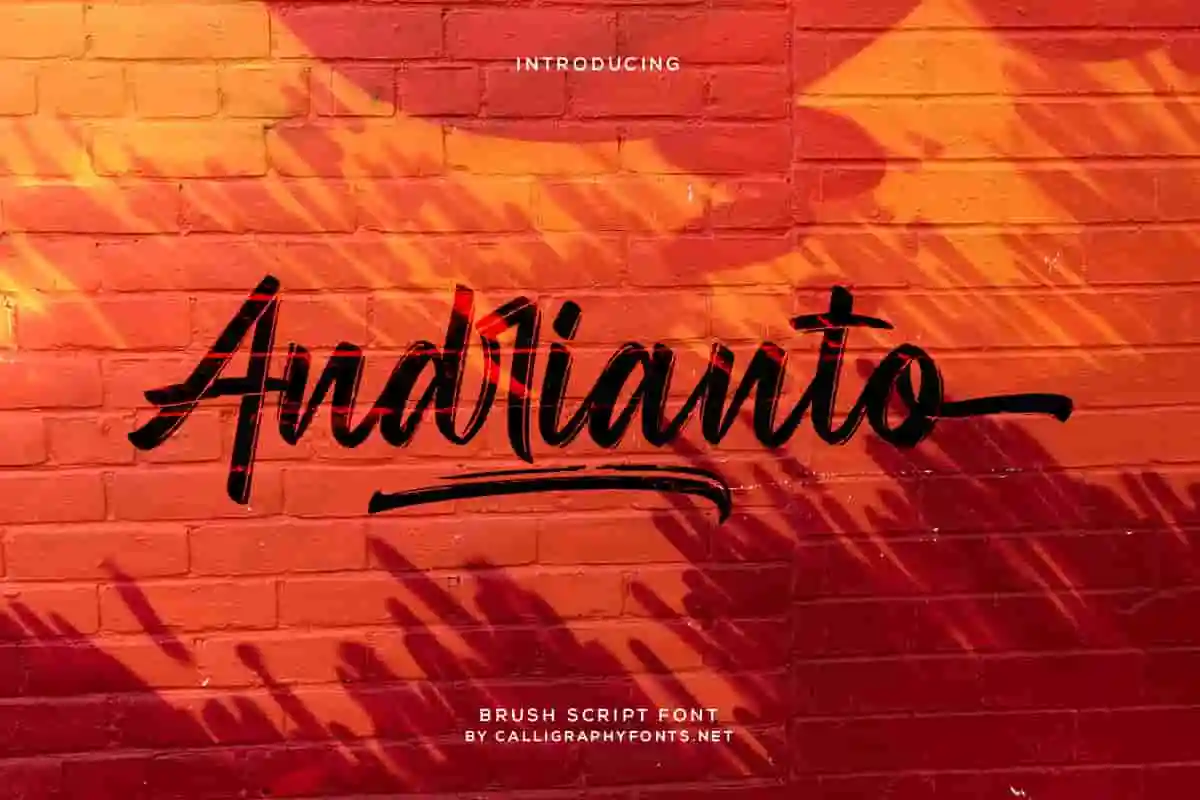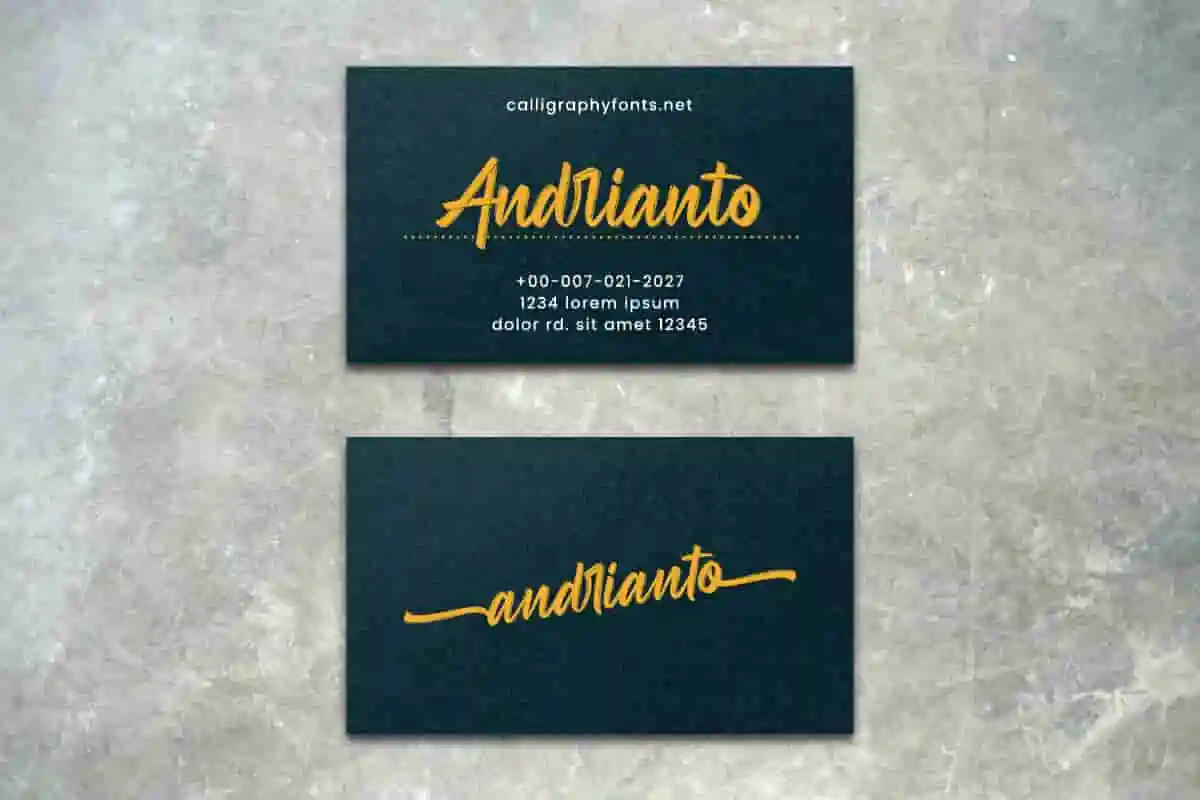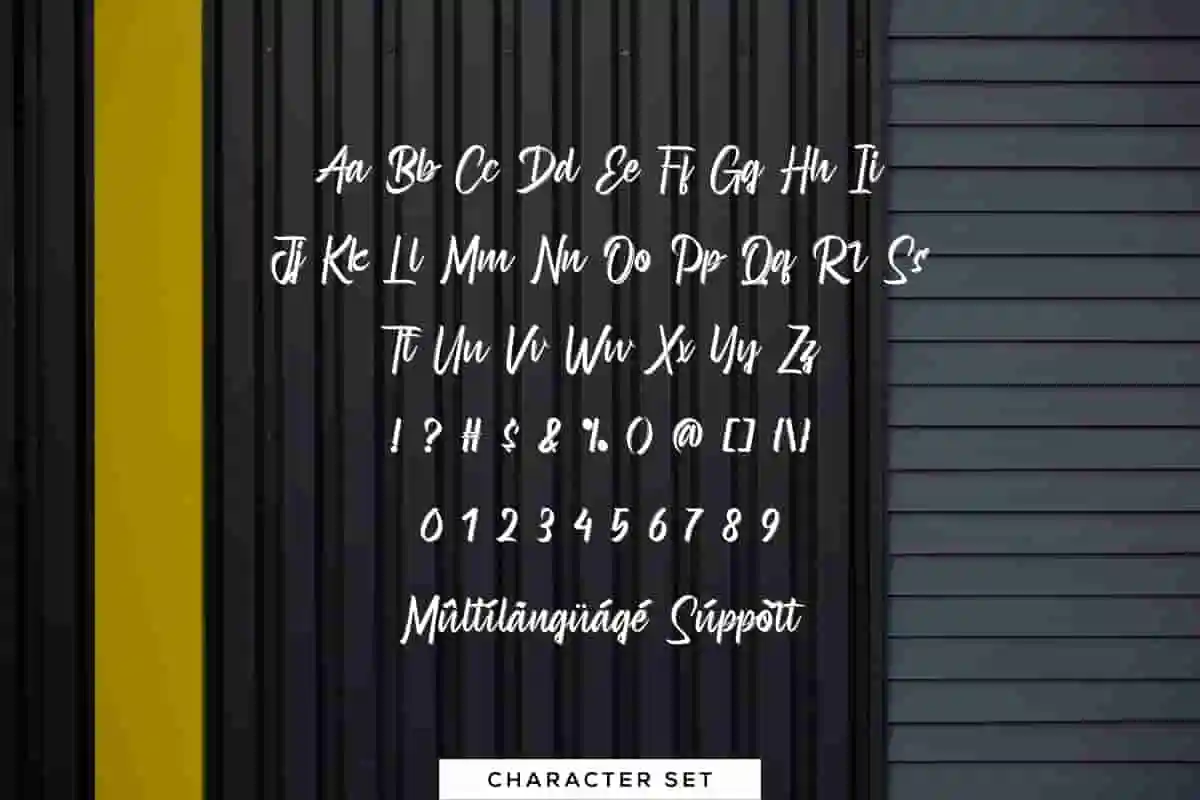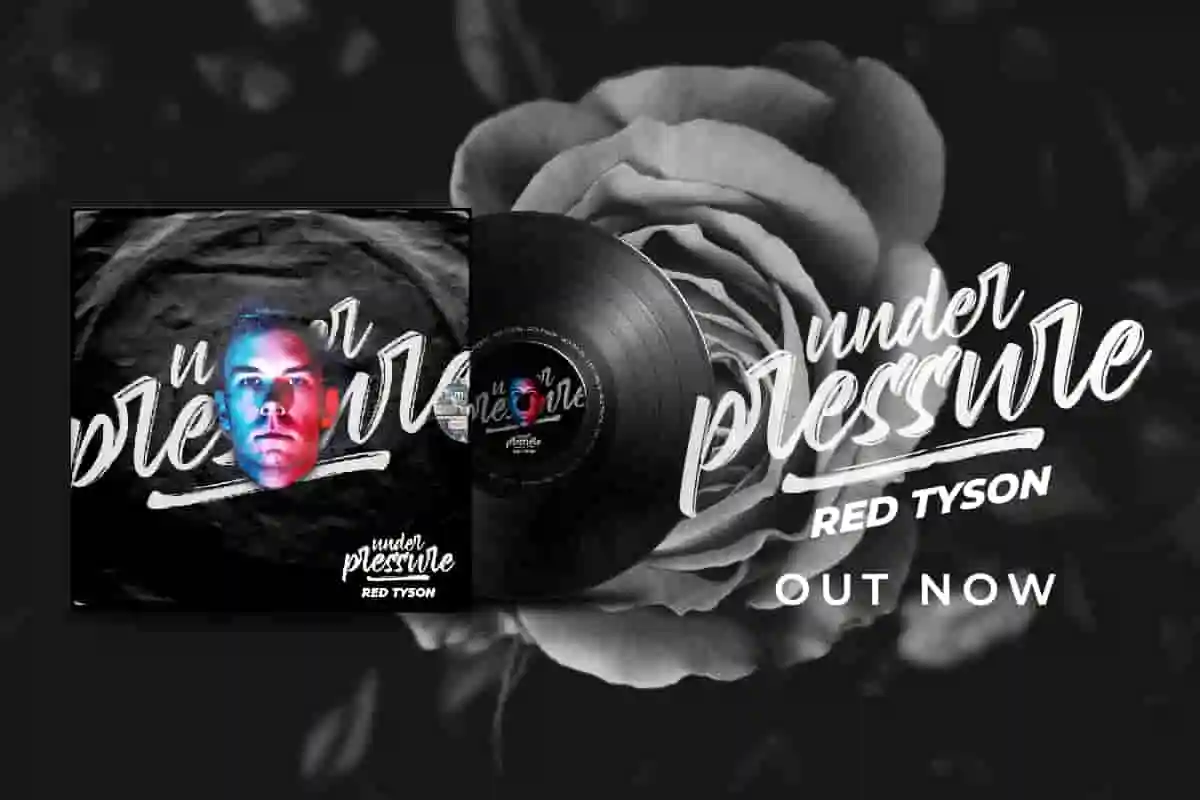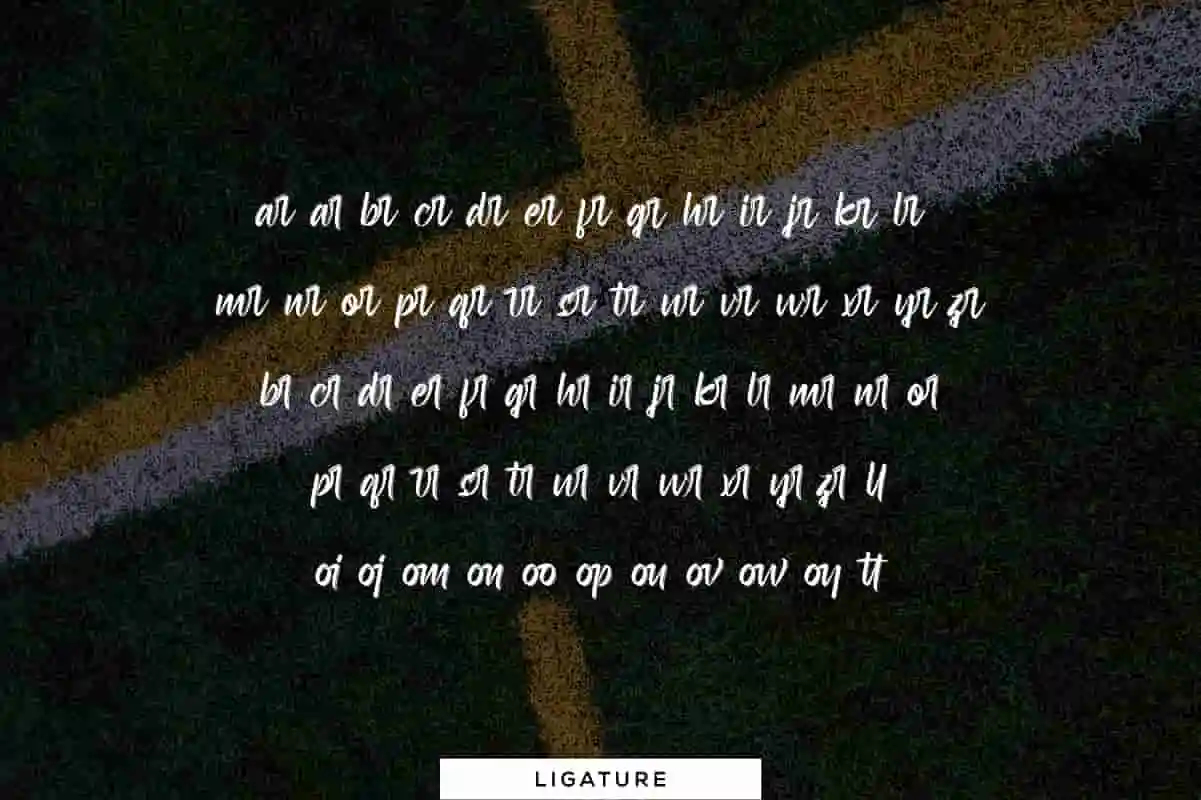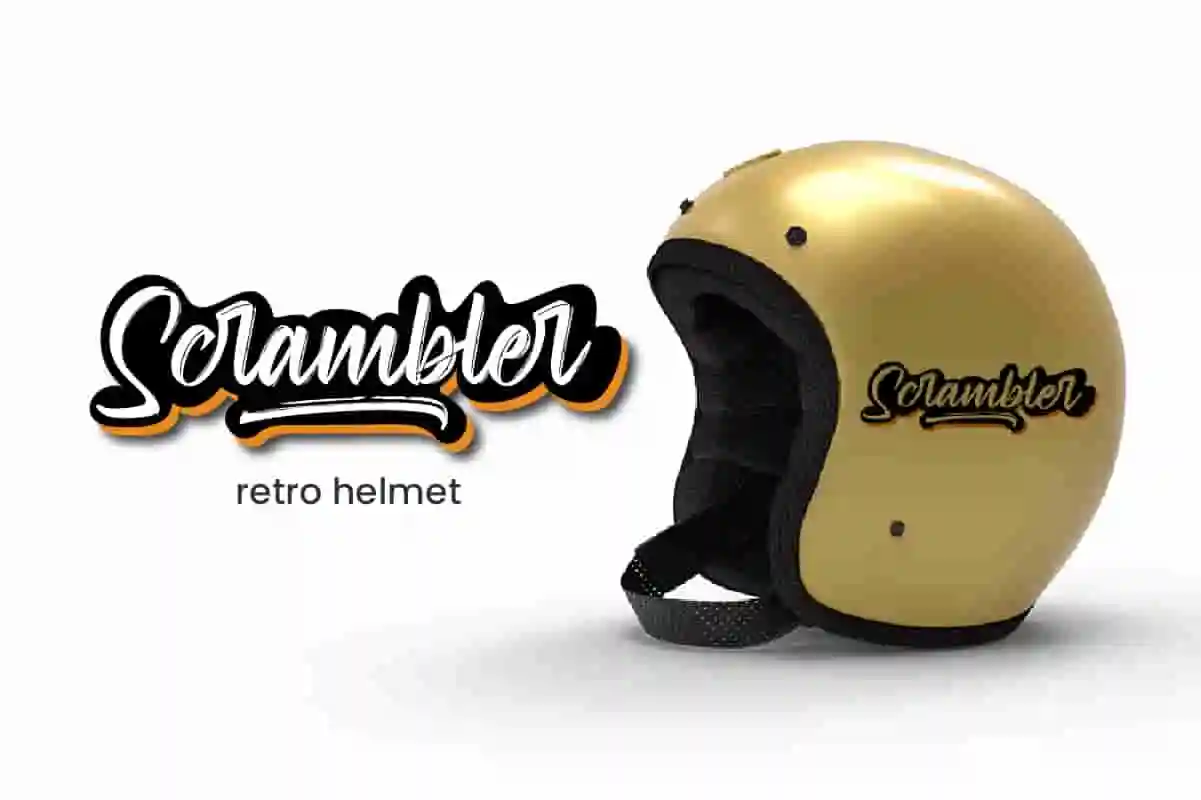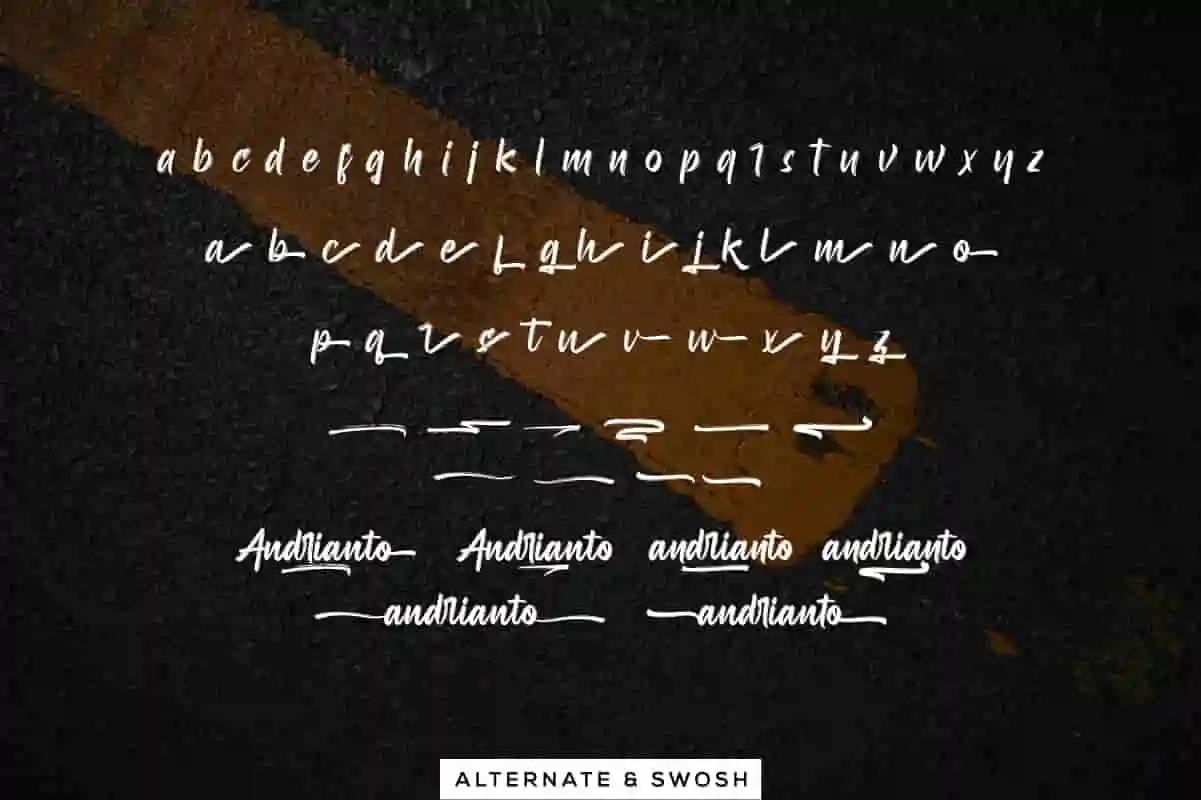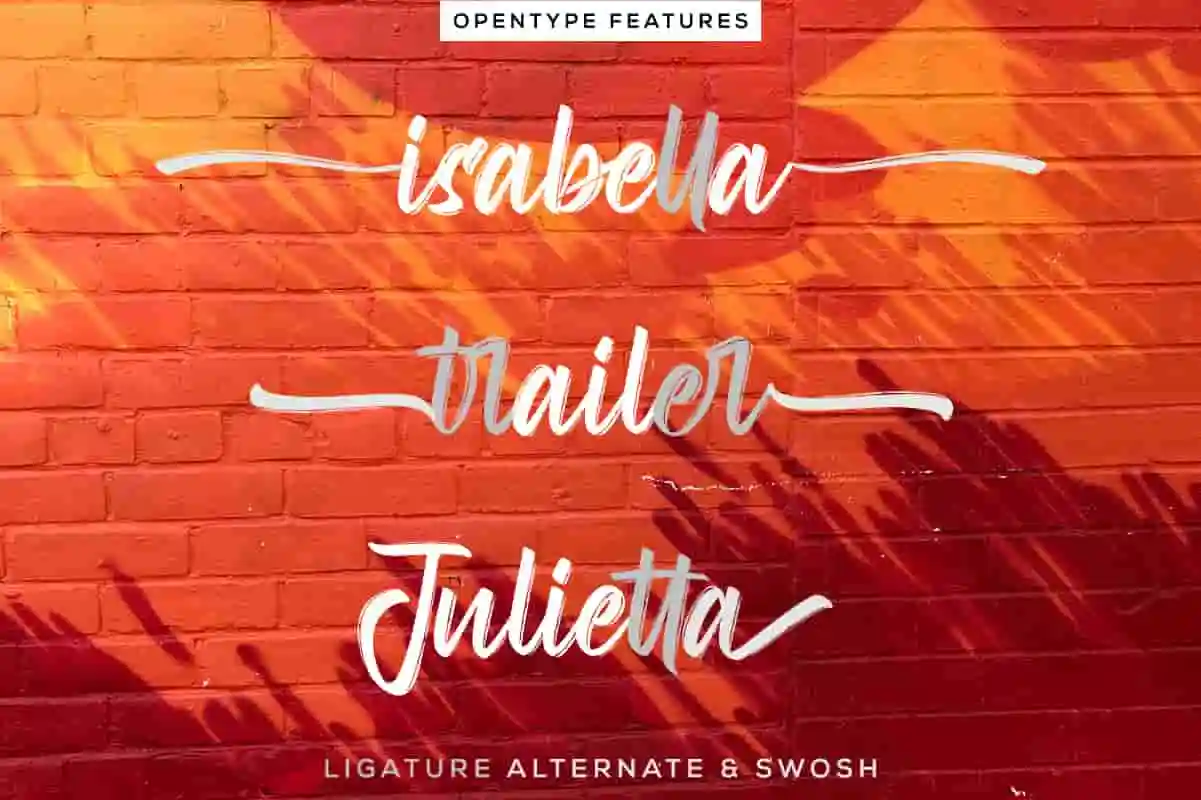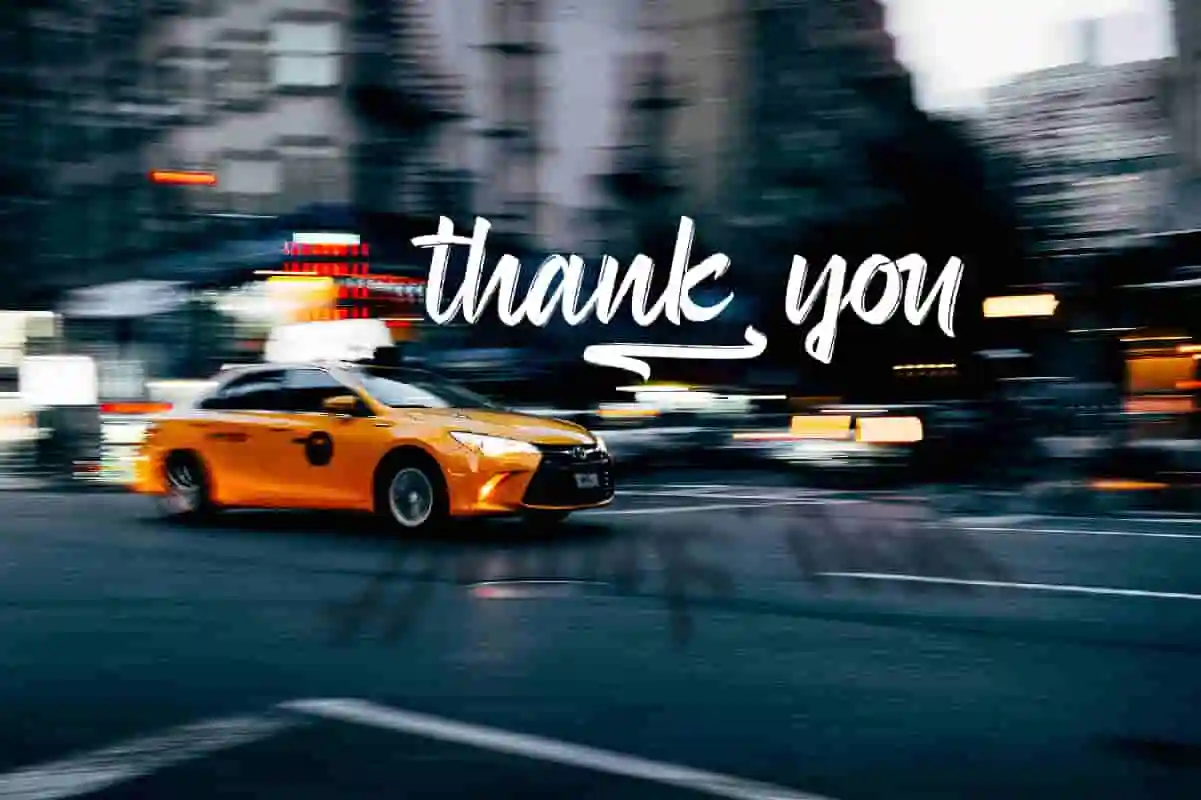
Andrianto Brush Font
Andrianto Font is a unique handmade brush font by CalligraphyFonts.net, Buy License to use it for Commercial purposes. Awesome for branding projects, homeware designs, product packaging – or simply as a stylish text overlay to any background image.
Andrianto is a brush font with a unique texture; delivering a stylish script which is guaranteed to add an eye-catching appeal. The style of this font are stylish, classic, elegant, a fresh new handwritten brush script with a touch of class, and of course, outstanding looks 🙂
Say hello to Andrianto Brush Font, a bold and expressive brush script designed to bring a sense of motion, energy, and handmade authenticity to your creative projects. With strong strokes and textured detail, Andrianto is perfect for branding, merchandise, advertising, social media graphics, album art, and more.
Whether you’re working on apparel, logo design, or powerful visual content, Andrianto Brush Font helps your message stand out with confidence and originality. The handmade brush style adds a gritty, urban edge while staying highly legible and adaptable.
Andrianto Font tested Work on PC & Mac. Andrianto font is inspired by old style and combination with Hand Lettering style. we made with personality touch every single curve. I hope this can make inspire you from your work. will be awesome for wedding, logos, handwritten quotes, product packaging, header, poster, merchandise, social media & greeting cards. Also great for branding projects, homeware designs, product packaging – or simply as a stylish text overlay to any background image.